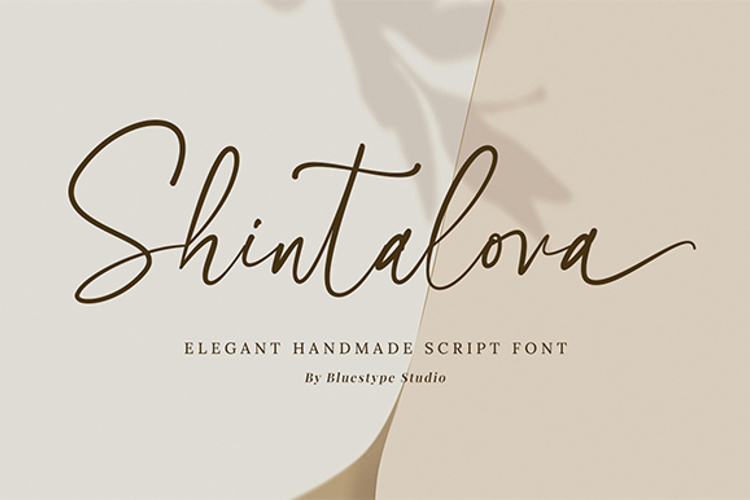
Shintalova Font
Shintalova is an elegant script font designed to deliver a refined, luxurious, and timeless look. Featuring smooth curves and graceful strokes, this font blends modern sophistication with classic script charm, making it perfect for high-end and stylish design projects.